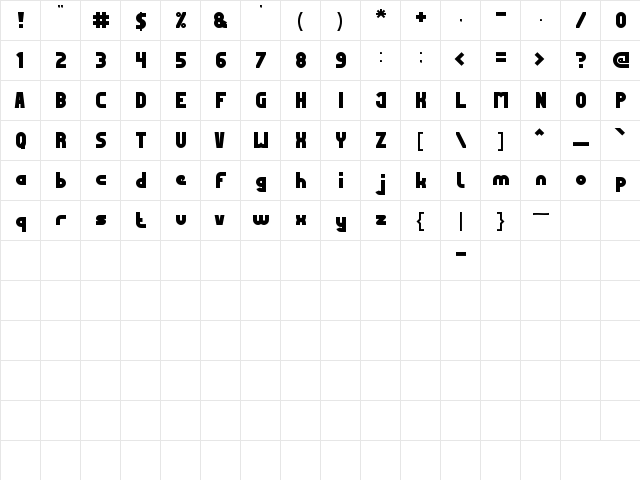
MOST FAMOUS Regular
Design Context for MOST FAMOUS Typeface
MOST FAMOUS is a composed and adaptable typeface that performs quietly and consistently across a wide range of design contexts.